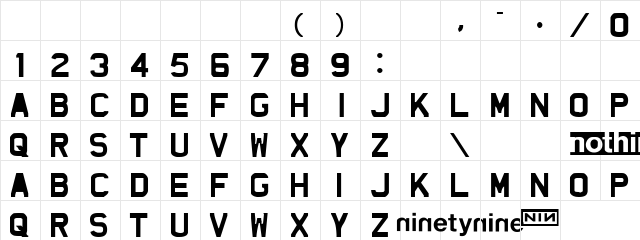
The Fragile Bold Caps
The Fragile takes a measured approach to typography — its balanced proportions and neutral character make it a reliable workhorse for both digital and print work. The heavy weight commands attention and anchors typographic hierarchies.